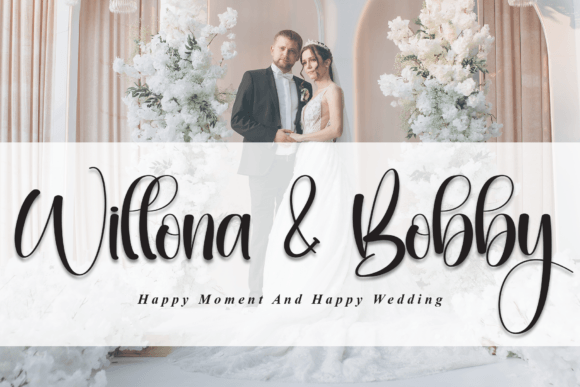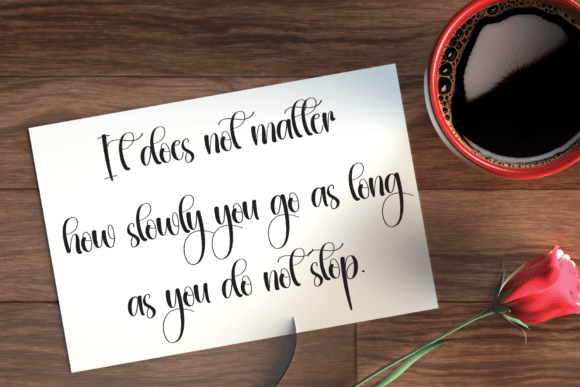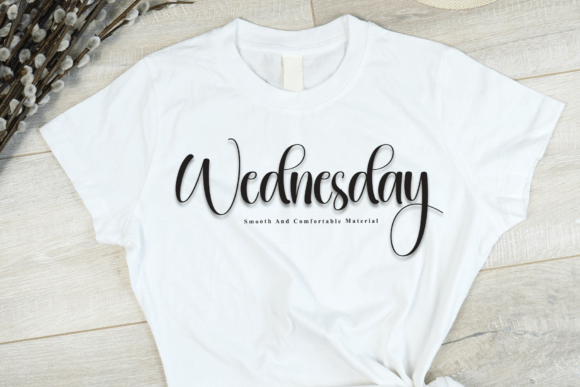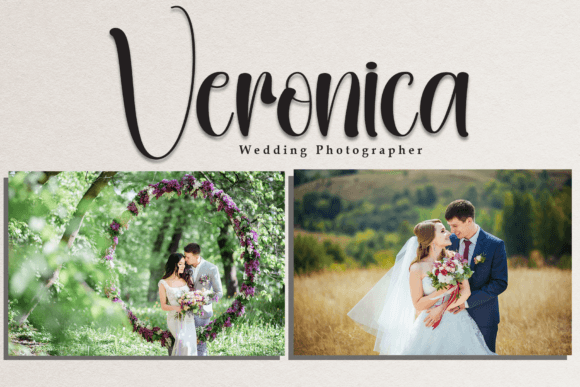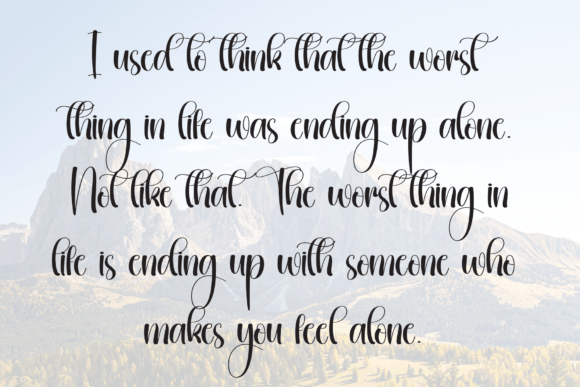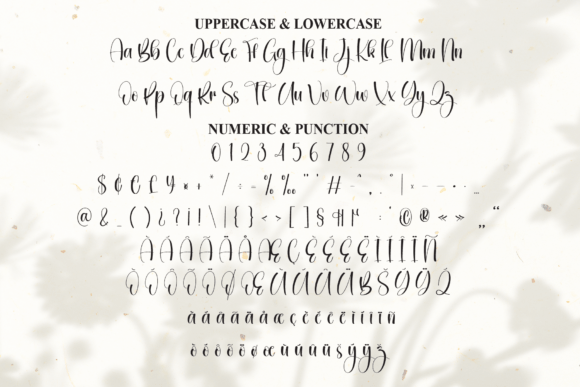
Discover the Charm of Cottagecore Font
I’ll never forget the moment I stumbled upon the perfect font for a client’s wedding invitation project. I had been searching for what felt like hours, trying out font after font, but nothing seemed quite right. That was until I discovered Cottagecore, a beautiful handwritten font that captured the cozy, rustic vibe my client was looking for. In this article, I’ll share my experience with Cottagecore, its unique features, and how you can use it to add a touch of charm to your designs.
A Personal Review of Cottagecore
Cottagecore has quickly become one of my go-to fonts for projects that require a warm and inviting feel. Here are some things I love about it:
- ✨ Soft, flowing letters that evoke a sense of nature and simplicity
- ✅ Perfect for designs that require a peaceful, countryside aesthetic
- ✅ Easy to read, even in smaller sizes
- ✨ Unique character set that adds a touch of whimsy to any design
While Cottagecore is an excellent font, it’s not without its quirks. Here are a few things to keep in mind:
- ⚠️ Some letters may appear a bit irregular or handwritten, which can be a challenge for designs that require uniformity
- 🤔 Limited availability of certain characters, such as ligatures or special symbols
The Story Behind Cottagecore
Cottagecore was designed by a talented typographer who wanted to capture the essence of simple living. Inspired by the rolling hills and quaint cottages of the countryside, Cottagecore is a font that evokes a sense of warmth and coziness. Whether used for invitations, posters, or personal projects, Cottagecore adds a touch of charm and whimsy to any design.
| What is Cottagecore font? | Cottagecore is a handwritten font that captures a cozy, rustic vibe. It features soft, flowing letters that remind you of nature, home, and simple living. |
| Can I use Cottagecore for my wedding invitations? | Absolutely! Cottagecore is a popular choice for wedding invitations, thanks to its romantic and whimsical feel. |